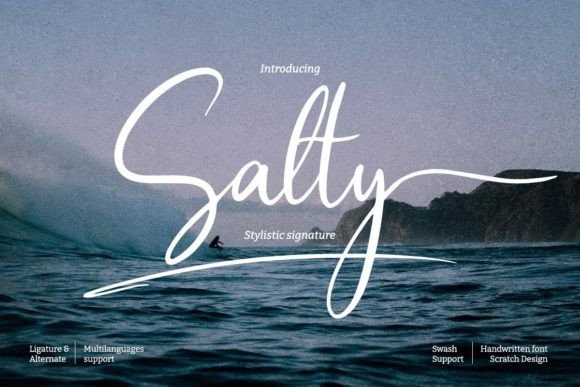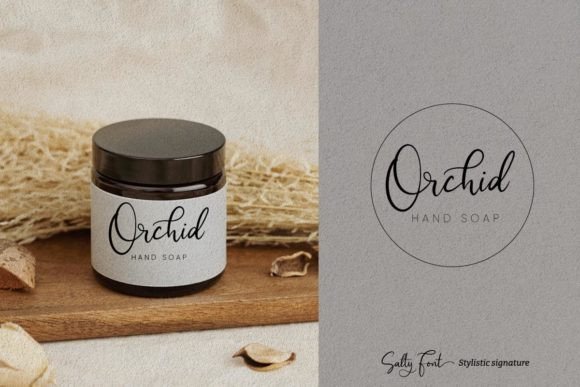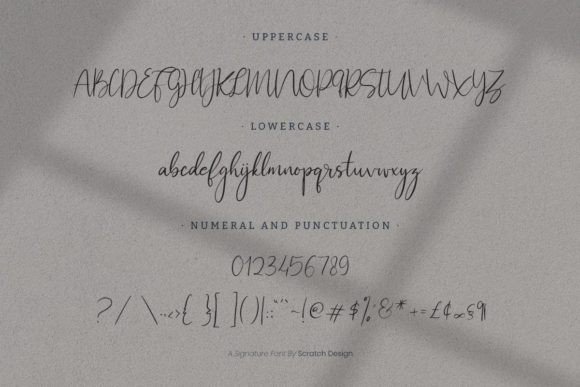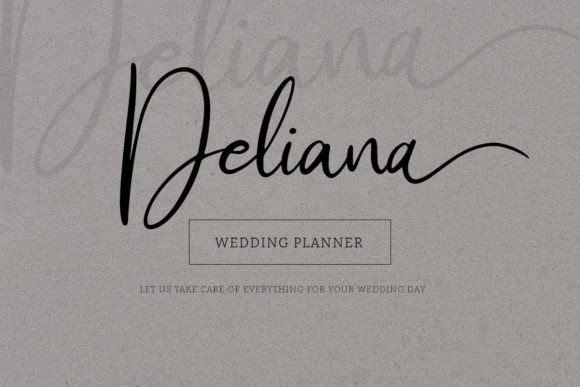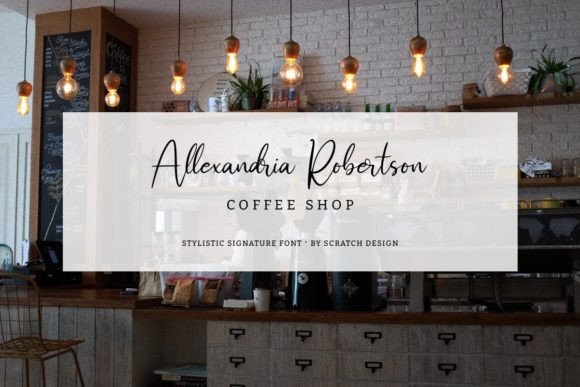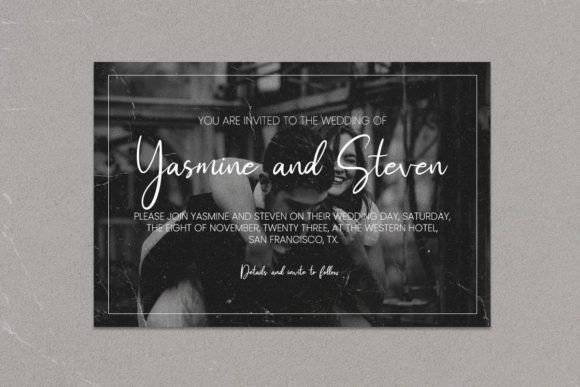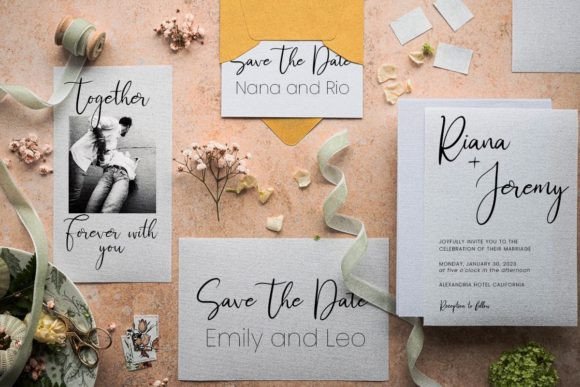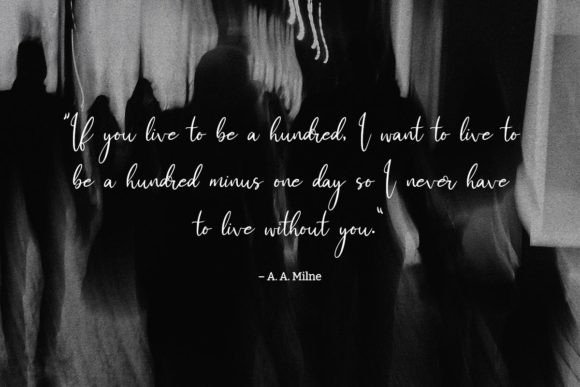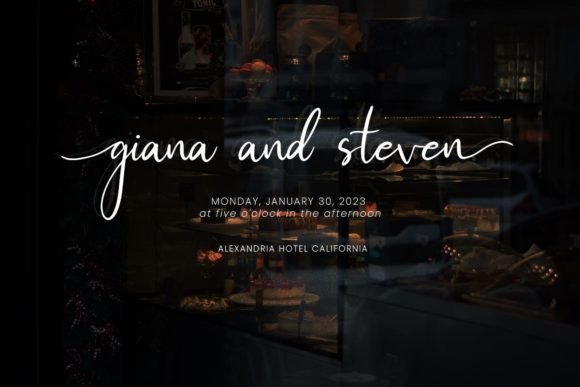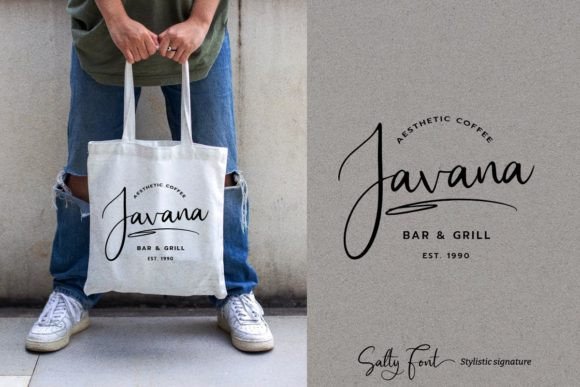
Salty Font
About Salty Font
Salty is a modern and stylish script font that stands out with its natural brush effects. Designed to bring a fresh and dynamic feel, Salty adds energy and personality to any design.
Modern and Stylish Design
Salty font captures a contemporary aesthetic with clean, smooth strokes that mimic the fluidity of natural brush strokes. This gives your designs an organic and handcrafted feel, blending modern style with artistic flair.
Natural Brush Effects
One of Salty’s key features is its natural brush texture, which adds depth and character. These brush effects make the font visually interesting while maintaining legibility and elegance. It works well for projects that need a touch of creativity without sacrificing professionalism.
Versatility in Use
Salty font is versatile and adapts well across many types of projects. It suits a wide range of design purposes, including logos, product packaging, social media graphics, posters, and more. This adaptability makes Salty a valuable addition to any designer’s toolkit.
Enhance Your Projects
By choosing Salty, you bring a modern edge and stylish charm to your designs. Its distinctive brush effects help your creative ideas stand out, making it ideal for brands and creatives who want to express authenticity and sophistication.
Key Features
• Modern and stylish script font
• Natural brush effects for depth and texture
• Suitable for logos, branding, and creative projects
• Adds energy and personality to designs
Why Use Salty Font?
Salty font blends contemporary style with the artistic touch of brush lettering. It elevates your design projects by providing a natural yet polished look.
In summary, Salty font is a modern and stylish script with natural brush effects that enhance your designs with character and elegance. Its versatility and unique texture make it an excellent choice for a variety of creative applications.